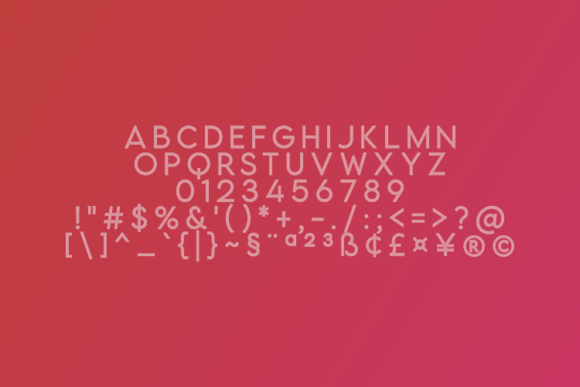
Introduction to Retdot Font
Retdot is a powerful sans serif font.
It features sturdy lines, juxtaposed with bold yet gentle rounding Retdot is the perfect font for logotypes, branding, apparel, and much more.